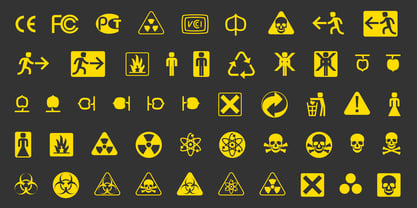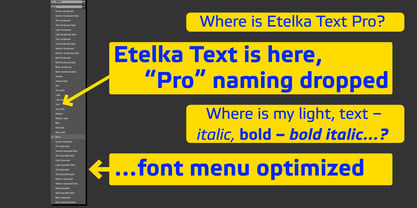
Etelka Font
Etelka Font is perfect for elegant literary publications, sophisticated editorial design, academic journals, cultural magazine layouts, poetry collections, and intellectual discourse materials. Its scholarly character makes it ideal for university presses, literary festivals, classical music venues, art history publications, philosophical journals, and any project requiring intellectual gravitas with European literary tradition and scholarly refinement.
This font is exciting because it embodies the rich tradition of Central European typography and intellectual heritage while delivering exceptional readability for extended reading experiences. The thoughtfully crafted letterforms reflect centuries of scholarly publishing tradition, creating typography that feels both academically authoritative and warmly accessible, making it perfect for institutions seeking to communicate knowledge, wisdom, and cultural sophistication to educated audiences.
The Etelka Font family typically includes Light, Regular, Medium, and Bold weights with scholarly alternates, academic ligatures, and intellectual ornaments that enhance its literary personality. This comprehensive collection enables designers to create prestigious brand systems that maintain scholarly authenticity while providing flexibility for various educational applications requiring both intellectual credibility and contemporary accessibility.